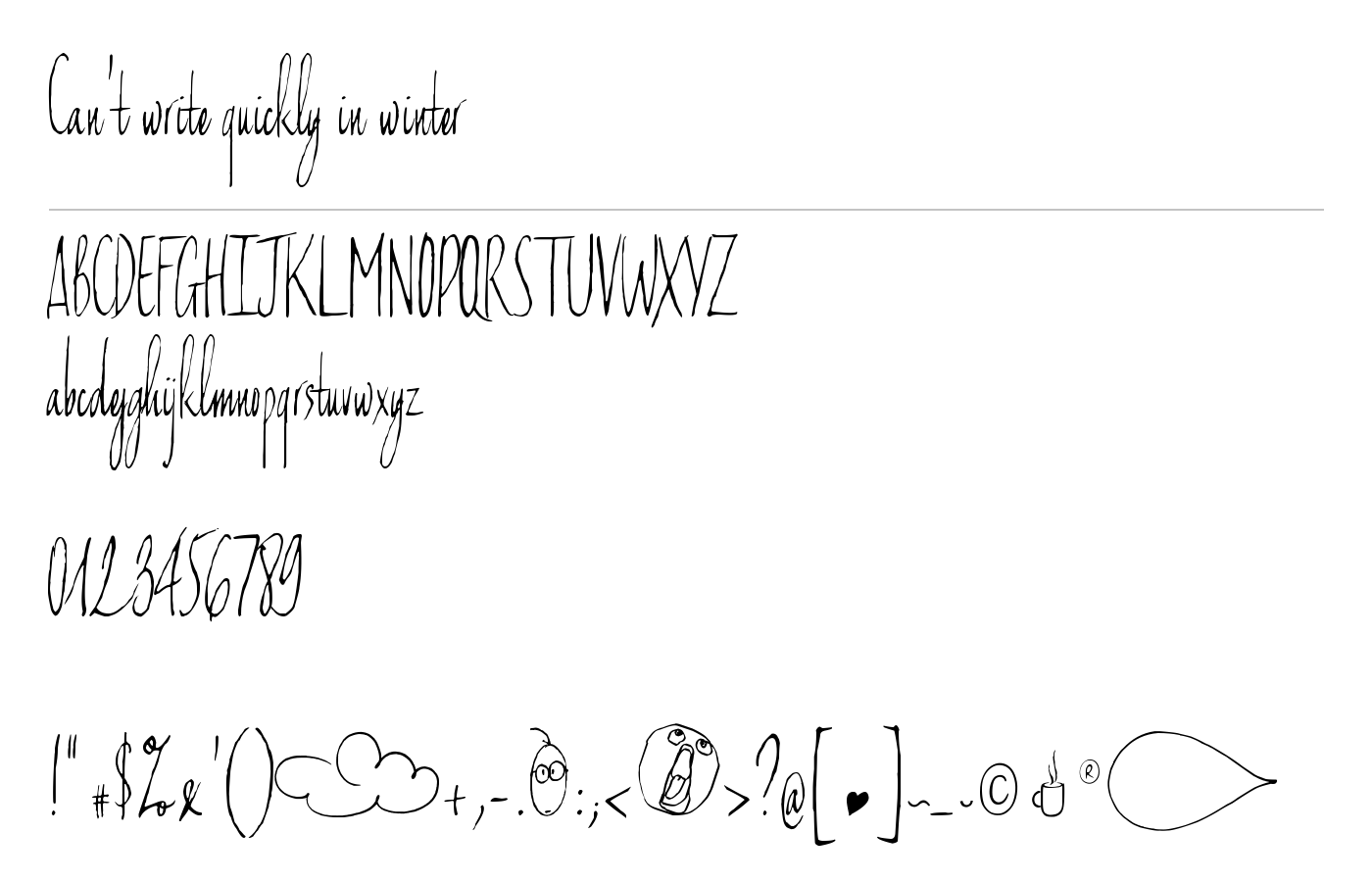
Can't write quickly in winter is a slender, hand-drawn sans serif font with a playful and quirky personality. Its tall, narrow letterforms and uneven strokes give it an organic, casual feel, making it perfect for creative projects that want to evoke spontaneity and warmth. This font works well for invitations, informal branding, and artistic headlines where a personal touch is desired.
Can't write quickly in winter Font
About Can't write quickly in winter Font
| Font family | Can't write quickly in winter Font |
| Designer | Le Thi Thu Huong |